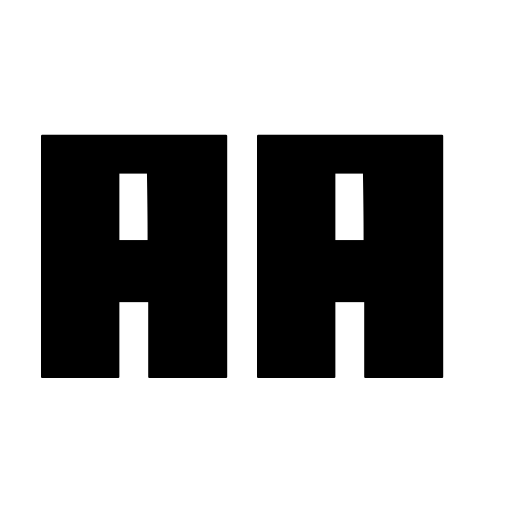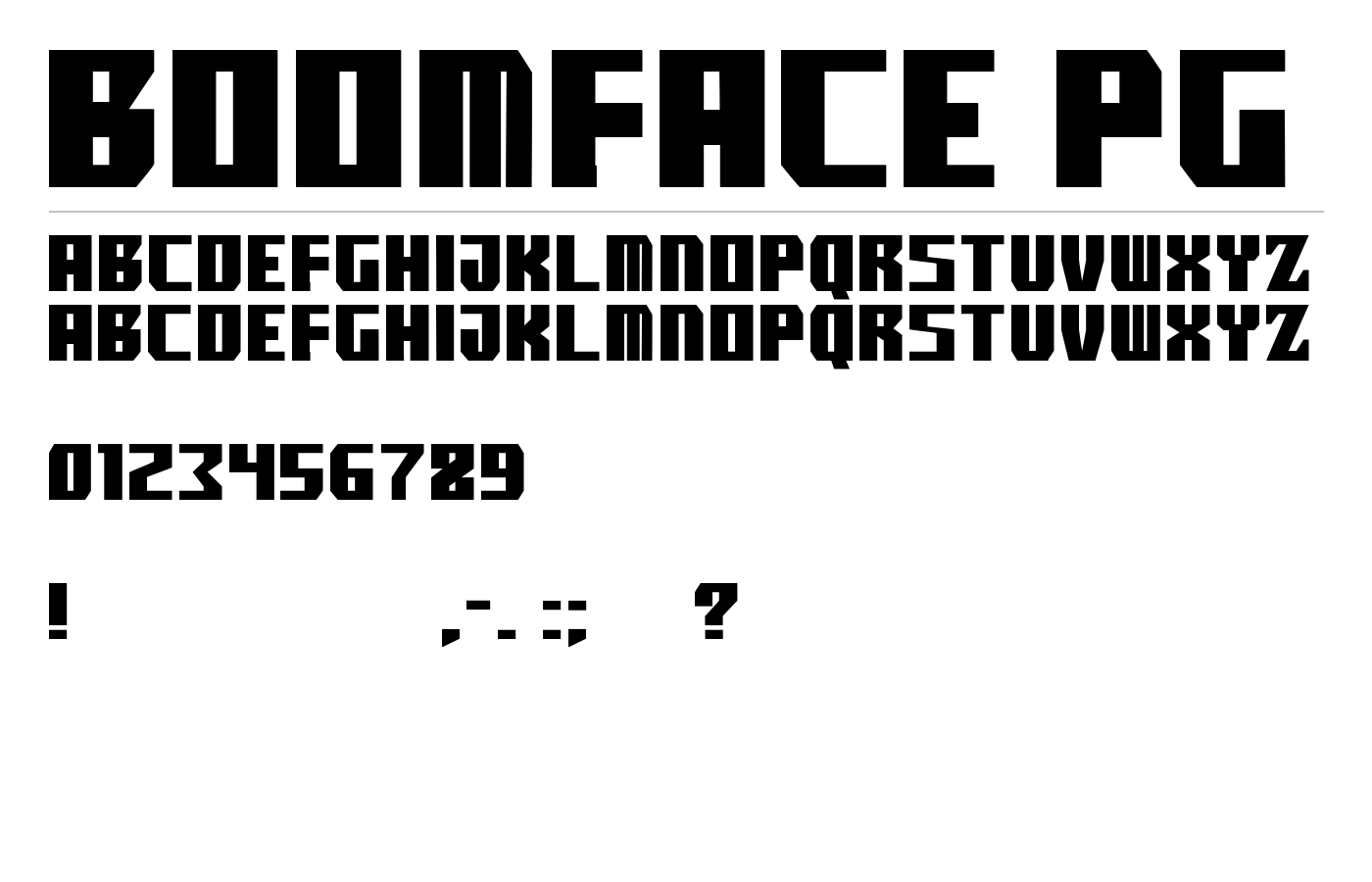
Boomface PG is a bold, condensed sans serif font with a strong geometric structure and sharp angles that create a powerful, modern look. Its heavy weight and blocky letterforms make it perfect for striking headlines, logos, and branding that need to convey confidence and impact. This font works especially well in contexts where a bold, urban, or industrial vibe is desired.